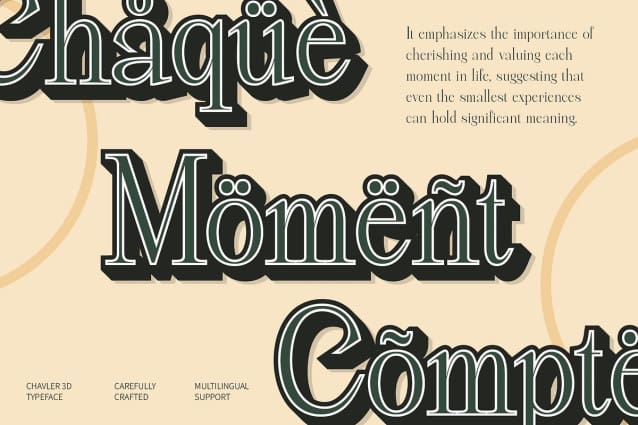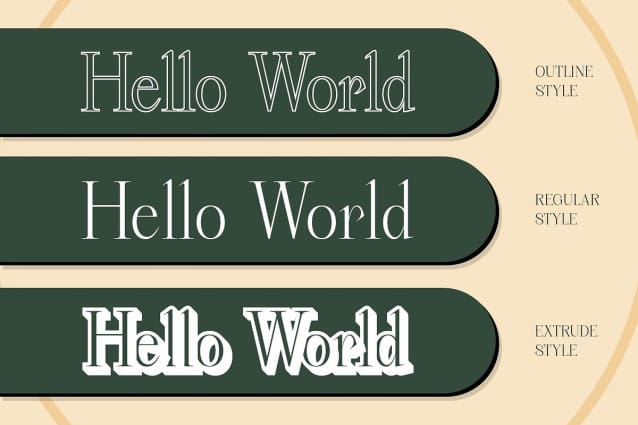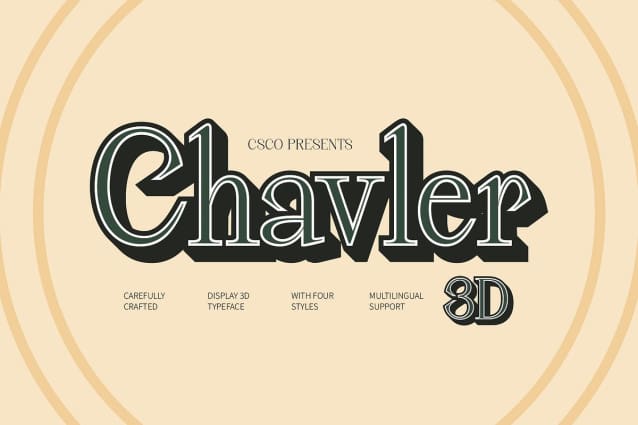
Chavler 3D Font
Chavler 3D Font is a modern serif font that radiates elegance and contemporary sophistication. With its sleek, refined serifs and meticulously balanced shapes, it captures a sense of professionalism and luxury. Perfect for high-end branding, editorial layouts, and formal invitations, Chavler 3D’s design adds an air of exclusivity to any project.
Stunning 3D Depth The striking 3D effect adds remarkable dimension to each letter, transforming the font into a dynamic element that captures attention. This depth not only enhances the aesthetic appeal but also reinforces the font’s luxurious vibe, creating a captivating visual experience. The interplay of light and shadow adds richness to the design, making it suitable for various applications where impact is essential.
Ideal Applications Chavler 3D is well-suited for projects that prioritize a sophisticated aesthetic—be it luxury brands, editorial spreads, or elegant event materials. Its combination of classic serif design and modern depth makes it an excellent choice for designs aiming to communicate elegance and exclusivity with a contemporary edge.
Luxury Meets Modernity With its harmonious blend of luxury and modern appeal, Chavler 3D offers a unique touch of grandeur to any project. This font doesn’t just beautify a design; it adds a dimension of style and refinement that sets it apart, making it the perfect choice for those seeking a high-impact, elegant visual presence.